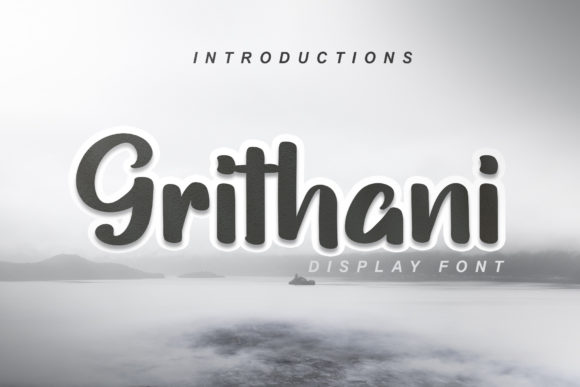
Grithani Font
Step into a world of confidence and style with Grithani, the display font that empowers your words to make a lasting impression. Crafted with meticulous care by the skilled hands of YanStudio, Grithani is a symphony of curves that dances across the page, capturing attention with its bold presence.
Whether you're crafting a standout resume that demands recognition or designing captivating editorial pieces that inspire, Grithani is your trusted companion. Its readability ensures that your message shines through, while its stylish flair adds a touch of sophistication that sets you apart.
Embrace the power of Grithani and watch as your words transform into captivating works of art. Let its smooth curves guide you towards success, leaving an indelible mark on every project you undertake.